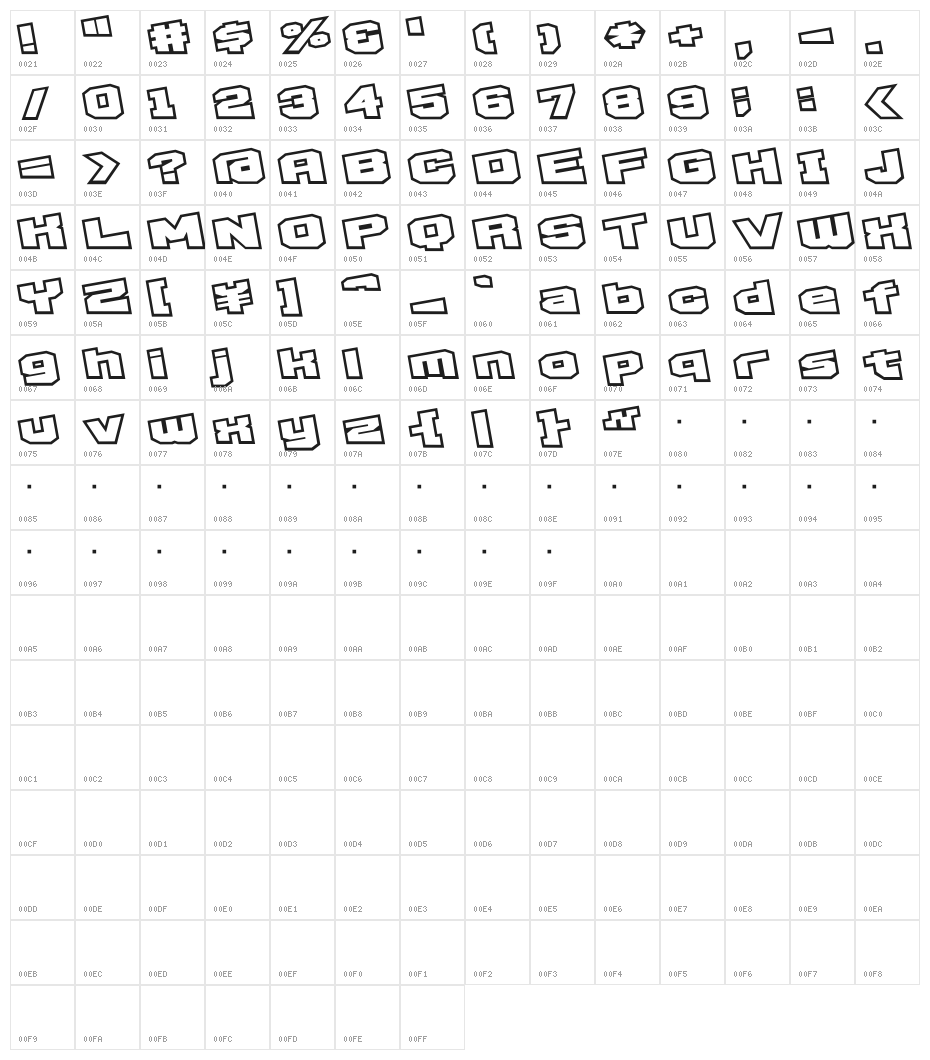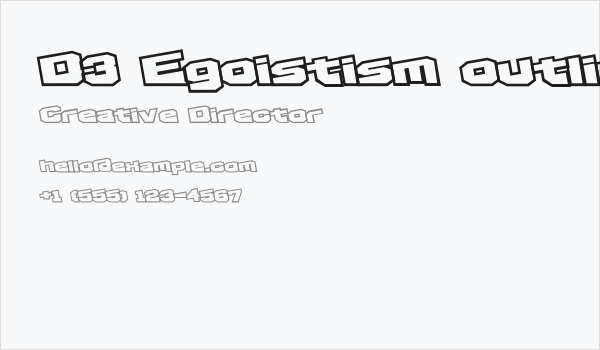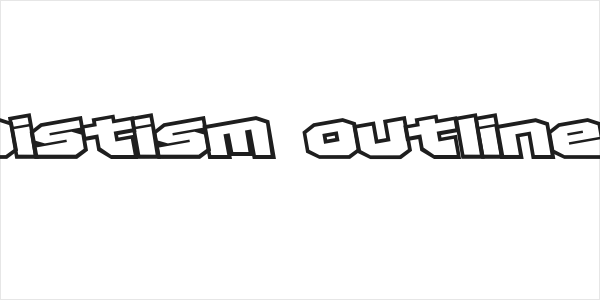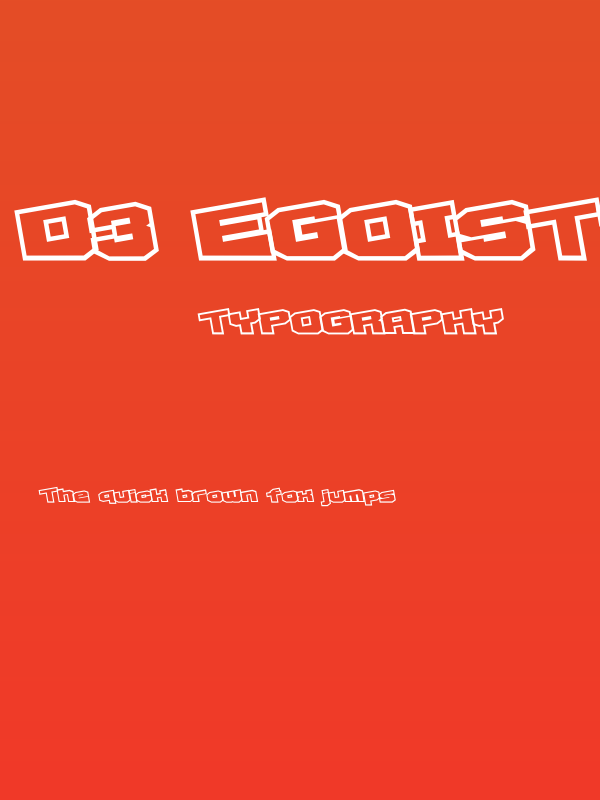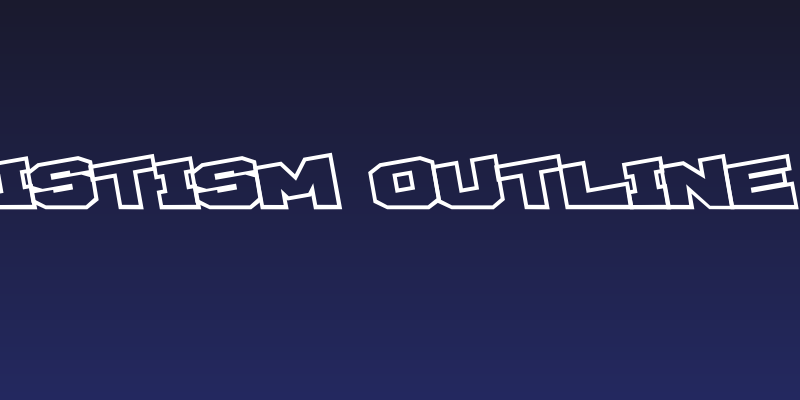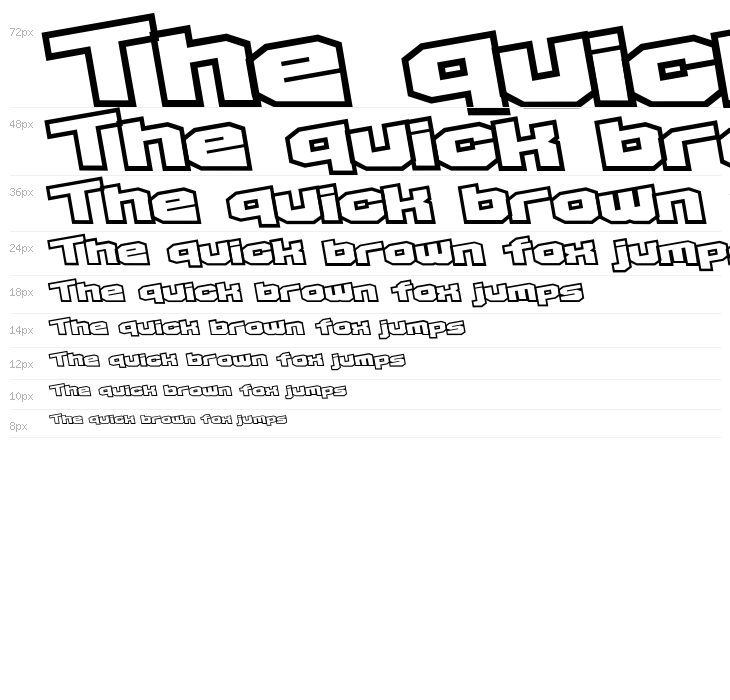
D3 Egoistism outline extra Font
D3 Egoistism outline extra Description
This font features a bold, outlined style that gives it a striking and modern appearance. The characters are angular and geometric, with a consistent thickness throughout the strokes, creating a uniform look. The uppercase and lowercase letters maintain a similar design, enhancing the font's cohesive aesthetic. The numbers and special characters follow the same design principles, ensuring a comprehensive and versatile typeface. Its distinct outline makes it ideal for attention-grabbing headlines or titles. The font's style is both playful and assertive, making it suitable for creative projects that require a bold statement.
| Proposed Projects | Ideal for posters, logos, video game graphics, and any project needing a bold, modern look. |